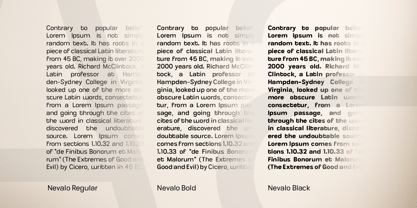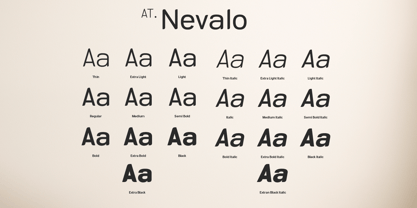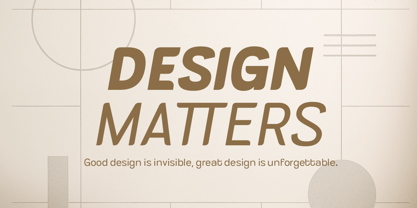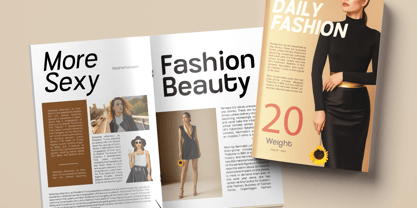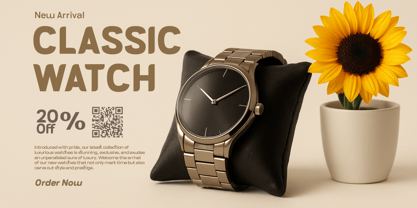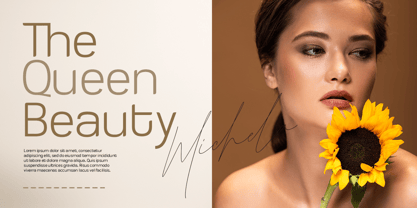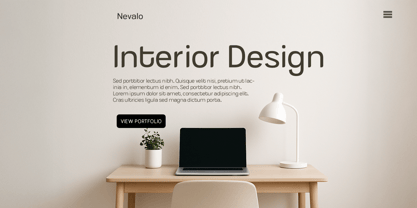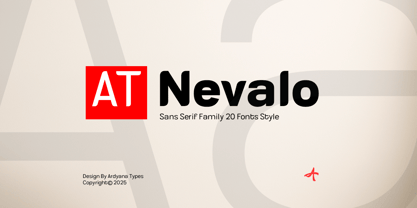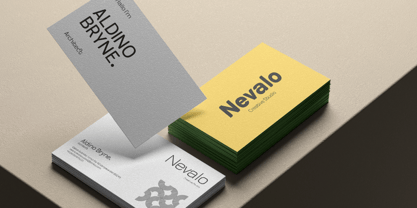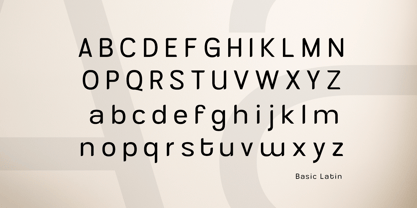
AT Nevalo
The AT Nevalo Font Family was designed by Ardyana Putra and published by Ardyanatypes. AT Nevalo contains 20 styles and family package options. More about this family
AT.Nevalo is a modern sans serif font family, meticulously crafted with precision and deep attention to detail. Inspired by contemporary typography trends, AT.Nevalo stands out with its clean, strong, and flexible design—perfect for a wide range of creative purposes.
With 20 font styles including Thin to Extra Black and matching Italics, AT.Nevalo offers incredible versatility. Whether you’re designing a futuristic poster, a cinematic film title, premium branding, or a sleek digital interface—this font blends effortlessly with any visual style, for both print and screen.
This font supports multilingual characters and is equipped with a full range of OpenType features, including:
• Alternates & Ligatures
• Advanced numeral sets
• Full punctuation and symbols
• Extended Latin support
Perfect for:
• Posters and promotional design
• Film and video titles
• Websites and apps
• Corporate branding
• Editorial layouts, magazines, and book covers
• Product packaging, interior design, and more
AT.Nevalo is the perfect choice for designers seeking a professional sans serif font that is adaptive, elegant, and easy to use across design styles—from modern minimalism and luxury editorial to creative artistic explorations.